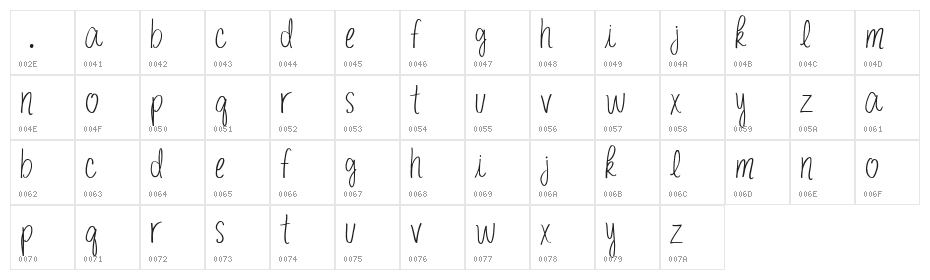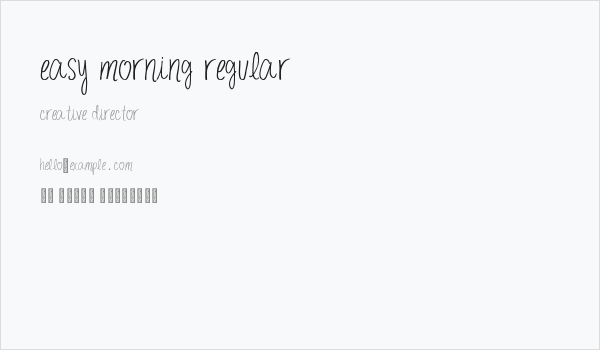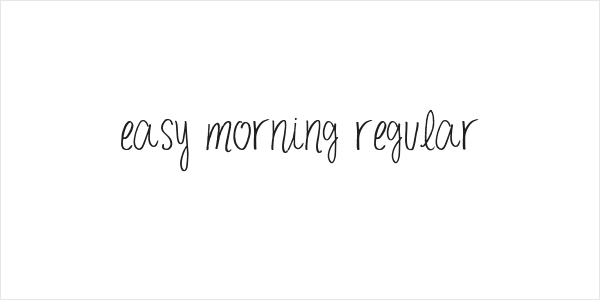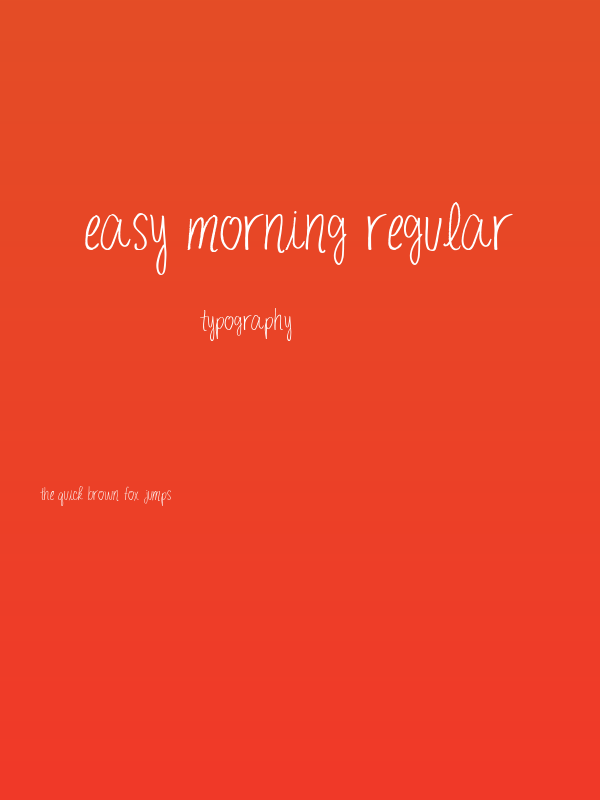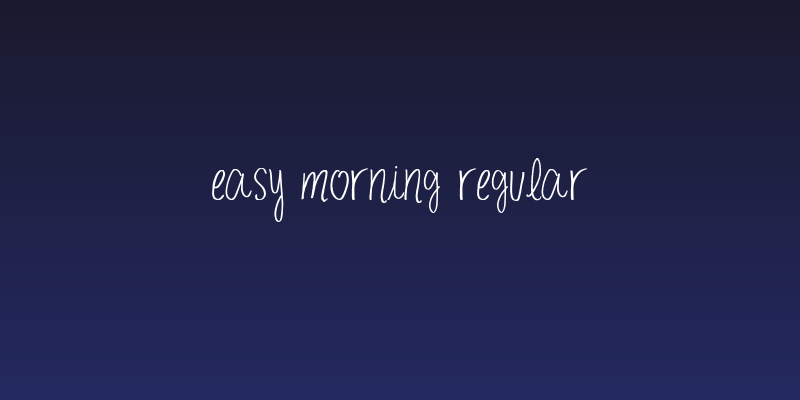
easy morning Regular Font
easy morning Regular Description
This font features a playful and casual handwritten style, characterized by its flowing and slightly irregular letterforms. The strokes are consistent in weight, giving it a uniform appearance, while the slight slant adds a touch of dynamism. The rounded edges and open counters contribute to its friendly and approachable feel. This font is versatile, suitable for projects that require a personal touch, such as greeting cards, invitations, or informal branding. Its simplicity and charm make it an excellent choice for conveying warmth and creativity.
Overall StyleCasual, Playful
Use CaseHeadlines, Informal text, Creative projects
Proposed ProjectsIdeal for greeting cards, invitations, informal branding, and creative projects.